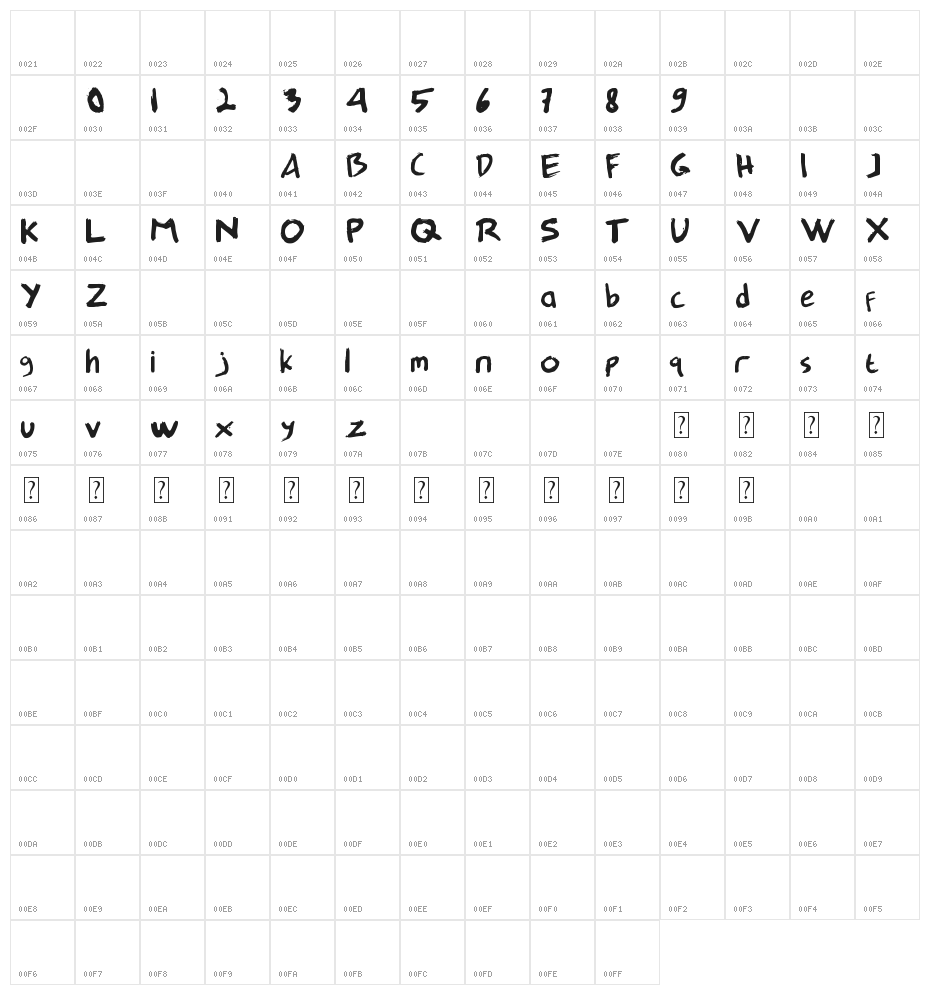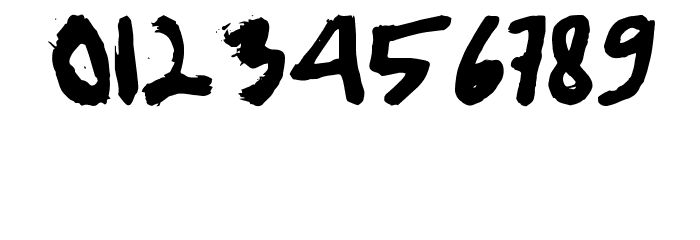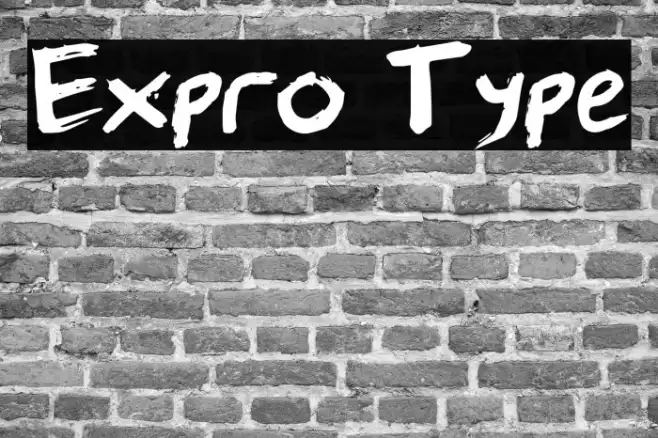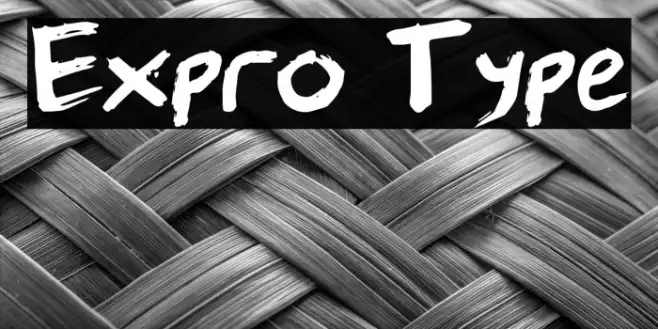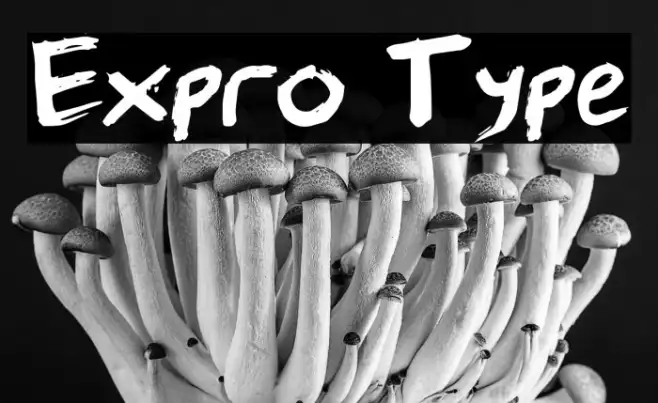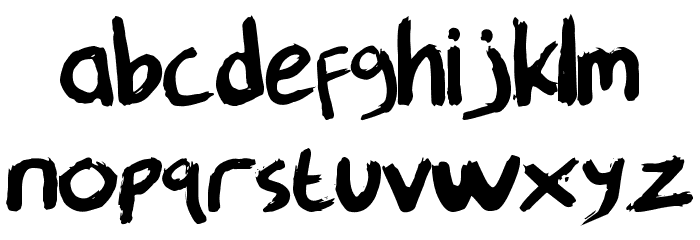
Expro Type Font
Expro Type Description
This font exhibits a bold, expressive style with a brush-like texture that gives it a dynamic and energetic appearance. The strokes are uneven and have a hand-painted quality, adding a sense of movement and spontaneity. The uppercase and lowercase letters maintain a consistent style, with slightly exaggerated curves and angles that enhance its artistic flair. The numbers and special characters follow the same aesthetic, ensuring uniformity across all elements. This font is ideal for projects that require a bold statement, such as posters, headlines, or branding materials that aim to capture attention and convey creativity.
| Overall Style | Modern, Artistic |
| Use Case | Headlines, Posters, Branding |
| Proposed Projects | Ideal for posters, headlines, branding, and creative projects requiring a bold statement. |